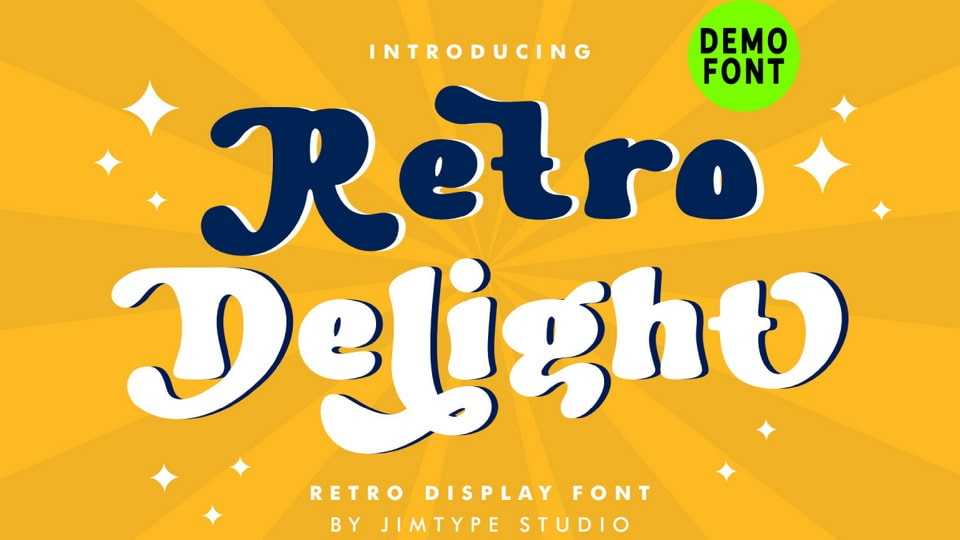
Download Retro Delight font, a hand lettered typeface designed with the perfect blend of nostalgia. Cute and girly, Retro Delight font is a fun choice for all branding projects, shop logos, websites, projects with a childish theme, and girly.